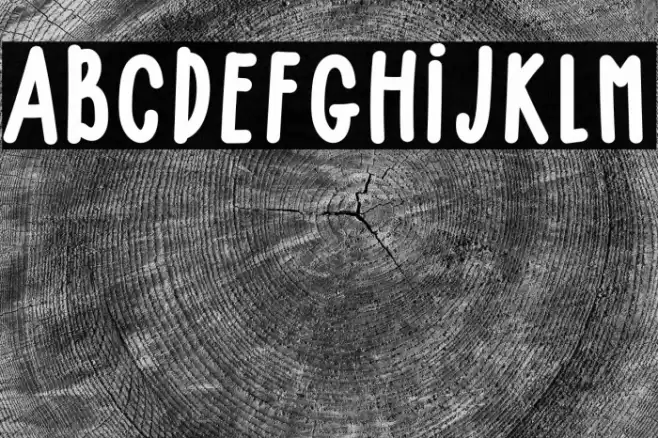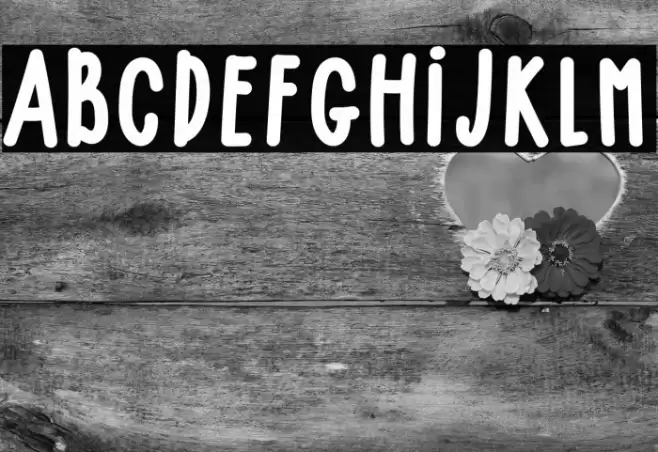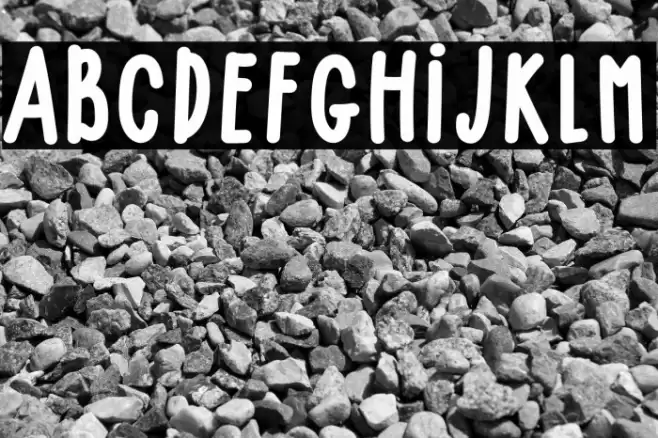
BABY GIRLY Font
BABY GIRLY Description
This playful and bold font features a handwritten style with a slightly irregular baseline, giving it a casual and friendly appearance. The uppercase letters are tall and slightly narrow, with rounded edges that add to its approachable feel. The lowercase letters maintain a consistent style, complementing the uppercase with their rounded forms. The numerals are clear and legible, matching the overall playful aesthetic. Special characters are included, maintaining the same whimsical style. This font is perfect for projects that require a fun and informal touch.
A playful, bold handwritten font with a casual and friendly style from Uncategorized fonts.
- Proposed Projects: Ideal for children's books, playful branding, greeting cards, and informal invitations.
- Overall Style: Playful
- Use Case: Headlines, Logos, Informal Text